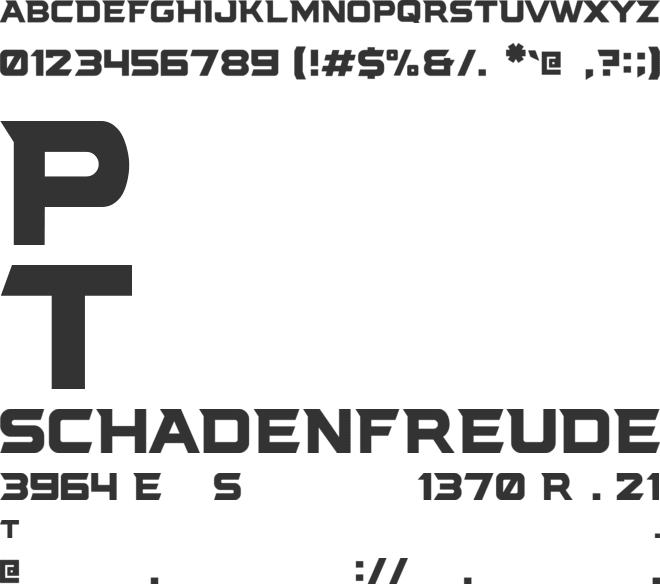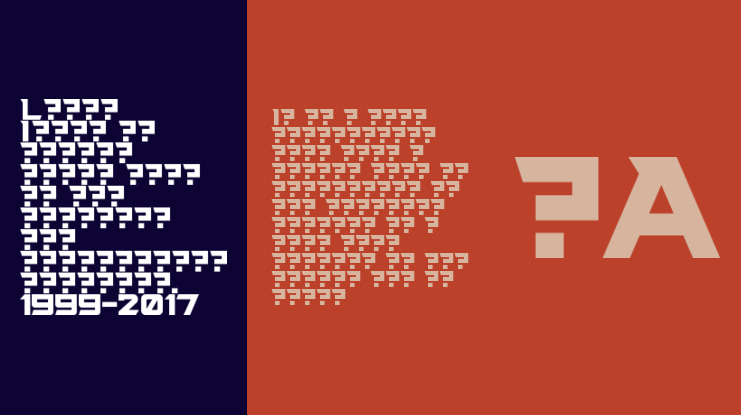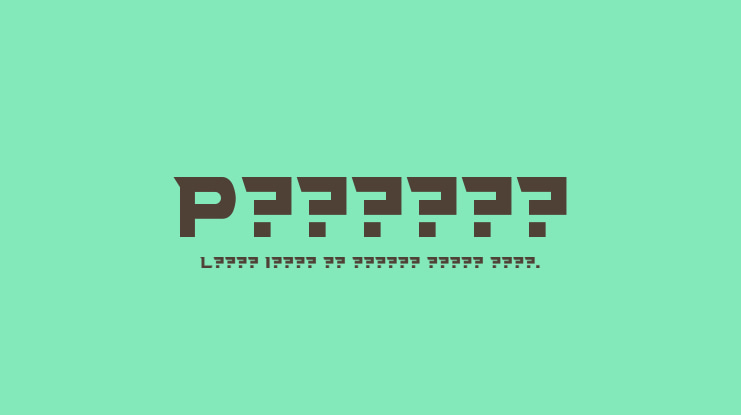
Poggers Font
Poggers is an all caps typeface designed by Trav at Creative Grenade. This FREE version includes the Bold weight of the Poggers Font Family. Great for use in big titles, logotype, and other gaming and sporty style applications.